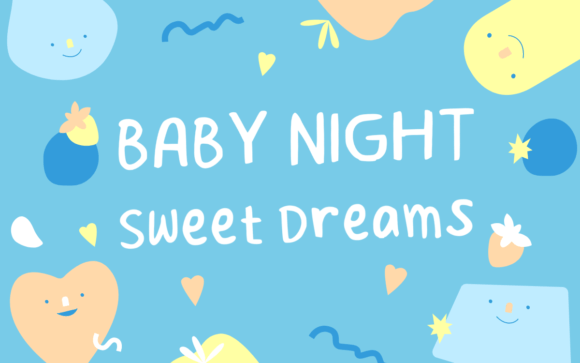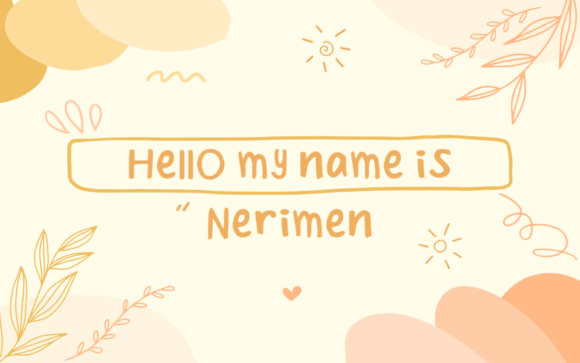
Baby Night Font: A Fresh and Natural Handwritten Style for Your Designs
Baby Night Font is a beautiful, fresh, and natural handwritten font that has been making waves in the design world. Its stylish and readable features make it an ideal choice for a wide range of design ideas, from crafting and DIY projects to professional branding and marketing materials. In this article, we’ll dive into the world of Baby Night Font, exploring its unique characteristics, uses, and benefits for designers and crafters alike.
What is Baby Night Font?
Baby Night Font is a type of handwritten font that exudes a sense of warmth, simplicity, and elegance. Its natural and effortless style makes it perfect for designs that require a personal touch. The font’s unique characteristics include:
- Fresh and Modern: Baby Night Font boasts a fresh and modern look that will instantly elevate your designs.
- Handwritten Style: The font’s handwritten style gives it a personal and approachable feel, making it perfect for designs that require a human touch.
- Stylish and Readable: Baby Night Font is both stylish and readable, making it suitable for a wide range of design applications.
Uses of Baby Night Font
Baby Night Font’s versatility makes it an excellent choice for various design projects, including:
- Crafting and DIY Projects: Use Baby Night Font to add a personal touch to your crafting and DIY projects, such as handmade cards, gift tags, and scrapbooking.
- Branding and Marketing: The font’s stylish and professional look makes it suitable for branding and marketing materials, such as logos, brochures, and social media graphics.
- Wedding and Event Planning: Baby Night Font’s elegant and sophisticated style makes it perfect for wedding and event planning designs, such as invitations, programs, and signage.
- Stationery and Paper Products: Use Baby Night Font to create beautiful and unique stationery and paper products, such as notebooks, journals, and greeting cards.
Benefits of Using Baby Night Font
There are several benefits to using Baby Night Font in your designs:
- Unique and Eye-Catching: Baby Night Font’s fresh and modern style will make your designs stand out from the crowd.
- Easy to Read: The font’s readability makes it perfect for designs that require a clear and concise message.
- Versatile: Baby Night Font’s versatility makes it suitable for a wide range of design applications.
- Time-Saving: With Baby Night Font, you can create professional-looking designs in no time, saving you time and effort.
Tips for Using Baby Night Font
Here are some tips for using Baby Night Font effectively in your designs:
- Pair it with Other Fonts: Experiment with pairing Baby Night Font with other fonts to create a unique and visually appealing design.
- Use it for Headings and Titles: Use Baby Night Font for headings and titles to add a touch of elegance and sophistication to your designs.
- Experiment with Colors: Try out different colors and color combinations to find the perfect match for your design.
| Font Name | Baby Night Font |
| Author | ProDesigner21 |
Baby Night Font is a beautiful and versatile handwritten font that is perfect for designers and crafters looking to add a personal touch to their designs. Its fresh and modern style, combined with its readability and versatility, make it an excellent choice for a wide range of design applications. Whether you’re working on a crafting project, branding materials, or wedding designs, Baby Night Font is sure to impress.